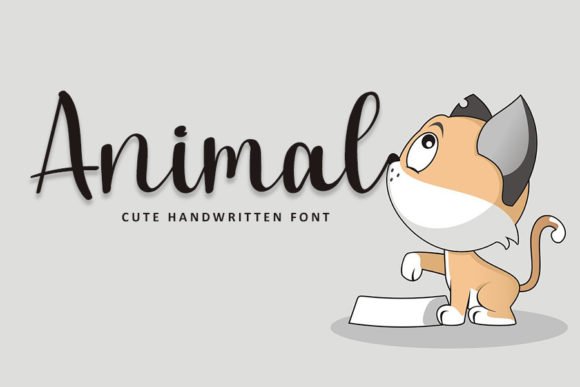
Discover the Wild Side of Typography: Animal Font
As a designer, there’s nothing quite like the thrill of finding the perfect font to bring a project to life. It’s that moment when the words start flowing, and the design begins to take shape. For me, it was when I stumbled upon the Animal Font – a trendy, handwritten font that exudes a contemporary atmosphere and impeccable form. Inspired by the timeless classic calligraphy, this font is a game-changer for designers looking to add a touch of elegance and class to their work.
With its versatility and sophistication, the Animal Font is a valuable addition to any designer’s toolkit. Whether you’re working on a product label, a logo, or a marketing campaign, this font can be used to write various kinds of products according to the aspect of each need.
Key Features of “Animal Font”
- Font Family: A unique, hand-drawn font featuring various animal silhouettes and characters, perfect for adding a playful touch to designs.
- Character Set: Includes a wide range of characters, including uppercase and lowercase letters, numbers, punctuation marks, and special symbols, as well as animal silhouettes and icons.
- Unique Characteristics: The font features a whimsical, hand-drawn style, with intricate details and textures, adding a touch of personality to designs.
Animal Font Review
Overall, I think Animal Font is an interesting choice for those looking for a bold and playful typeface. ✨ The quirky, hand-drawn style is reminiscent of children’s books and cartoons, making it a great fit for projects that require a whimsical touch.
Some things that work well in Animal Font include:
- ✨ High level of customization: The font includes multiple styles, weights, and language support, making it suitable for a wide range of projects.
- ✨ Unique aesthetic: The hand-drawn style of the font adds a touch of personality to any design, setting it apart from more generic sans-serif fonts.
- ✨ Friendly and approachable: The font’s playful nature makes it perfect for projects aimed at a younger audience or those that require a lighthearted tone.
- ⚠️ Limited legibility: At smaller font sizes, the font can become difficult to read due to its complex, hand-drawn nature.
- ⚠️ Not suitable for formal projects: The font’s playful style may not be suitable for formal or professional projects, where a more traditional or conservative font is preferred.
Overall, Animal Font is a great choice for projects that require a fun, playful touch. While it may not be suitable for all projects, its unique aesthetic and high level of customization make it a great option for designers looking to add some personality to their work.
Tips for Getting the Most Out of Animal Font
Experiment with different font sizes and styles to create visually appealing text. Use animal font to add a playful touch to your designs, such as in children’s books, advertisements, or social media graphics.
Animal font is commonly used in:
- Children’s books and educational materials
- Advertisements and marketing materials
- Social media graphics and posts
Alternatives to Animal Font
Great Vibes is a beautiful, handwritten font perfect for creating a relaxed and casual atmosphere. It’s ideal for headings, titles, and quotes where a touch of elegance and sophistication is desired. Compared to Animal Font, Great Vibes has a more refined and precise feel, making it suitable for a wider range of designs.
Alex Brush is a calligraphic font that exudes a sense of luxury and sophistication. It’s perfect for creating a high-end look and feel, especially in designs that require a touch of elegance and refinement. Compared to Animal Font, Alex Brush has a more polished and refined look, making it suitable for corporate and luxury brands.
Pacifico is a beautiful, modern script font that’s perfect for creating a sense of relaxation and calmness. It’s ideal for headings, titles, and quotes where a touch of warmth and personality is desired. Compared to Animal Font, Pacifico has a more modern and sleek feel, making it suitable for a wide range of designs, from fashion to travel.